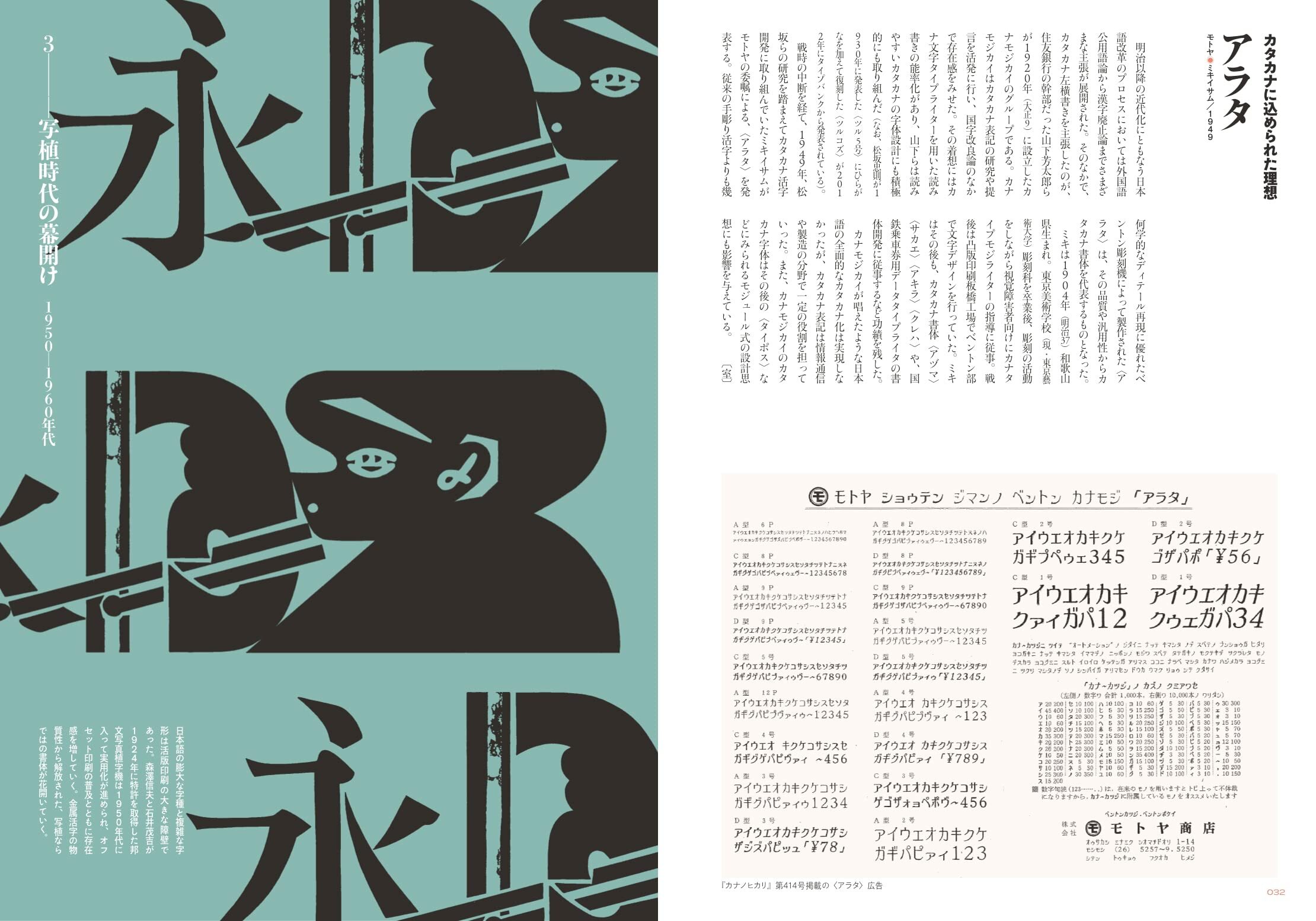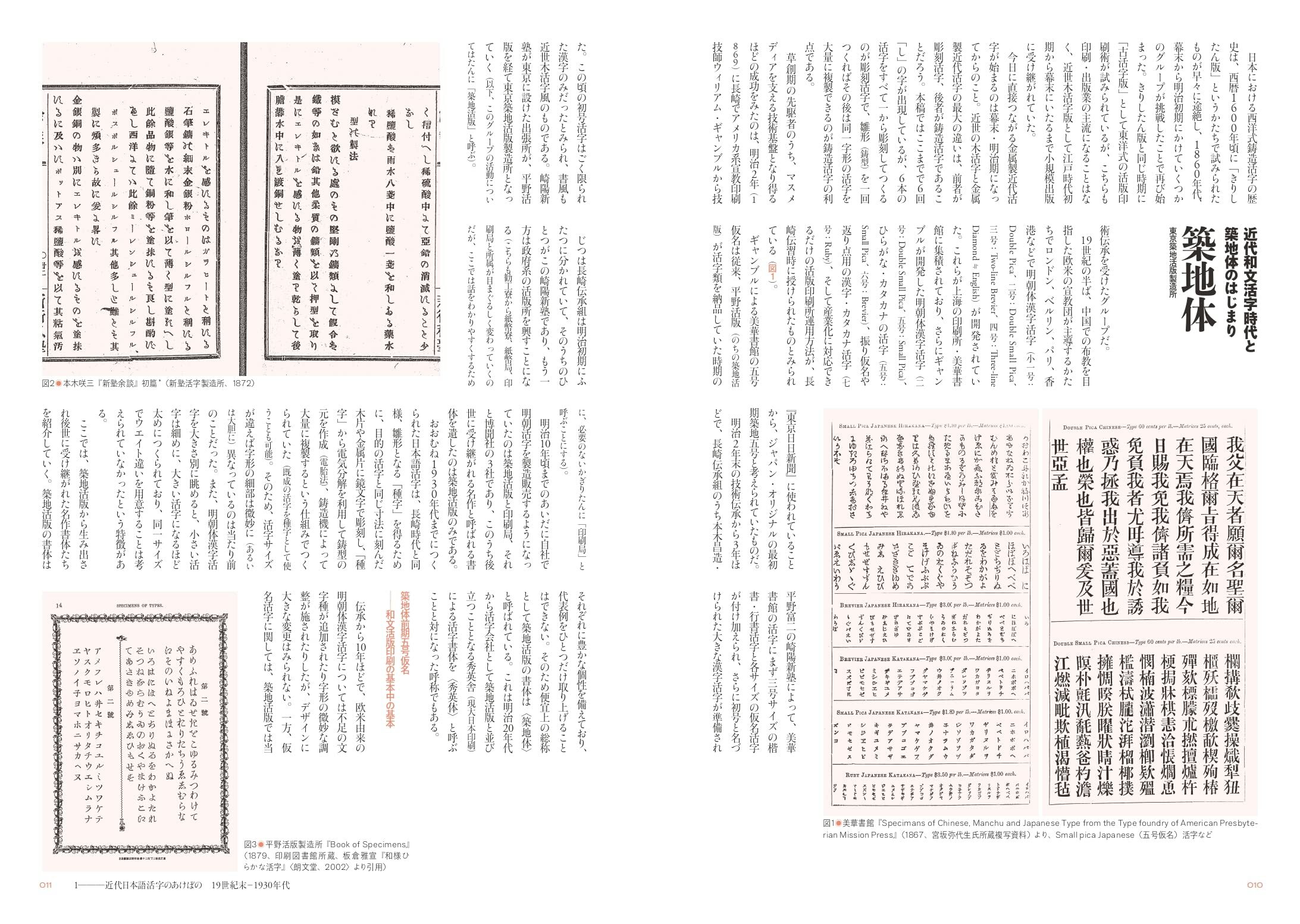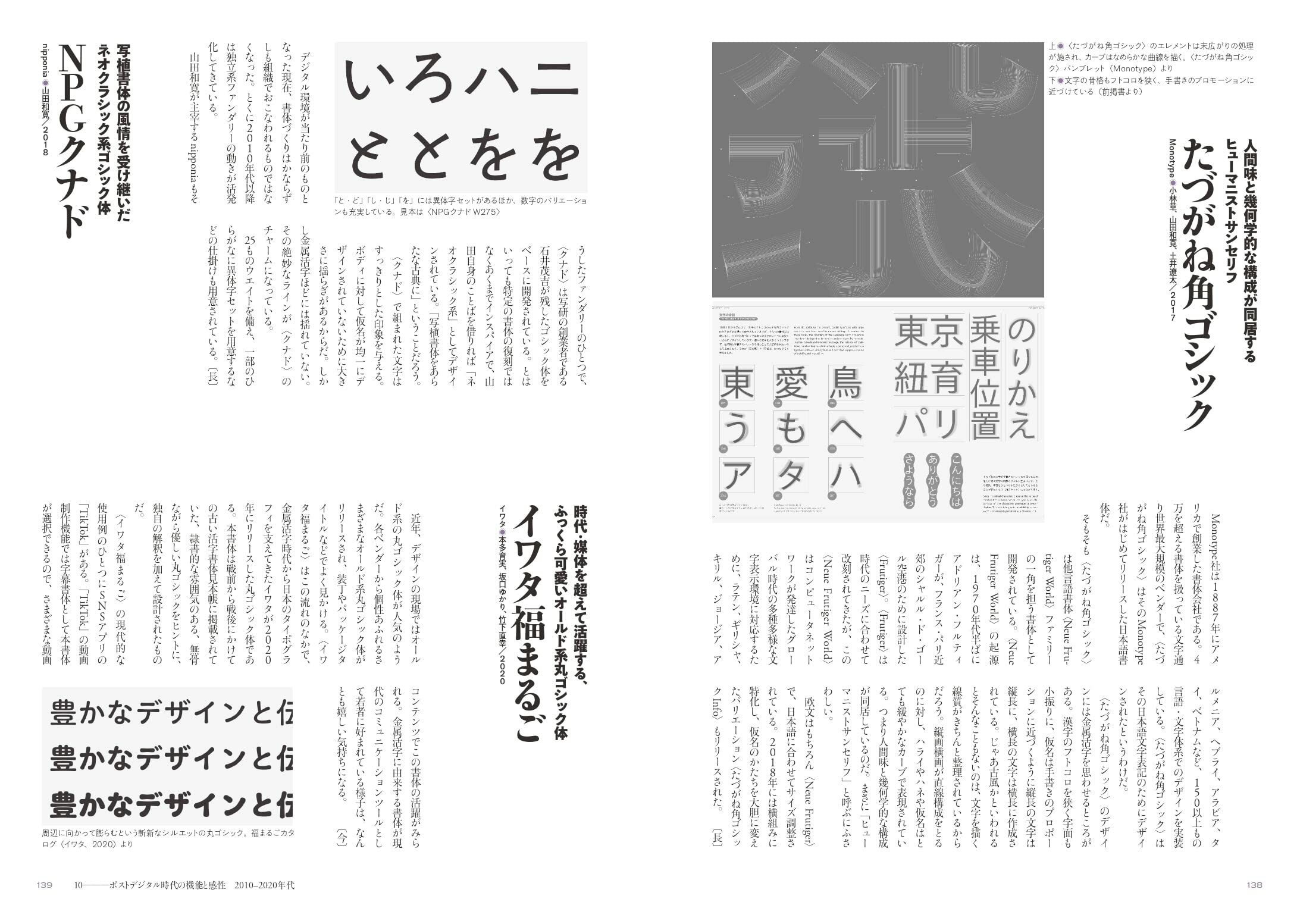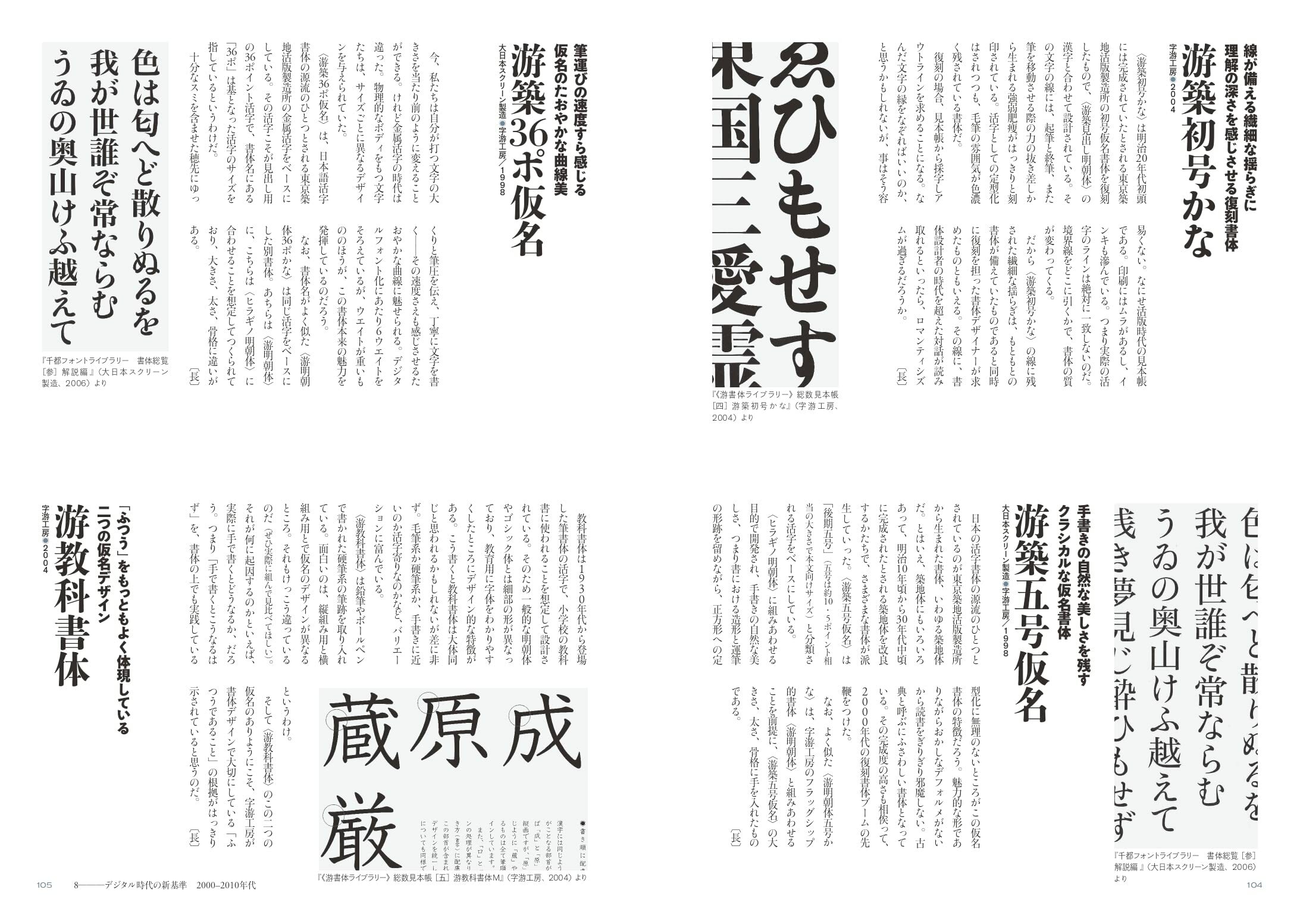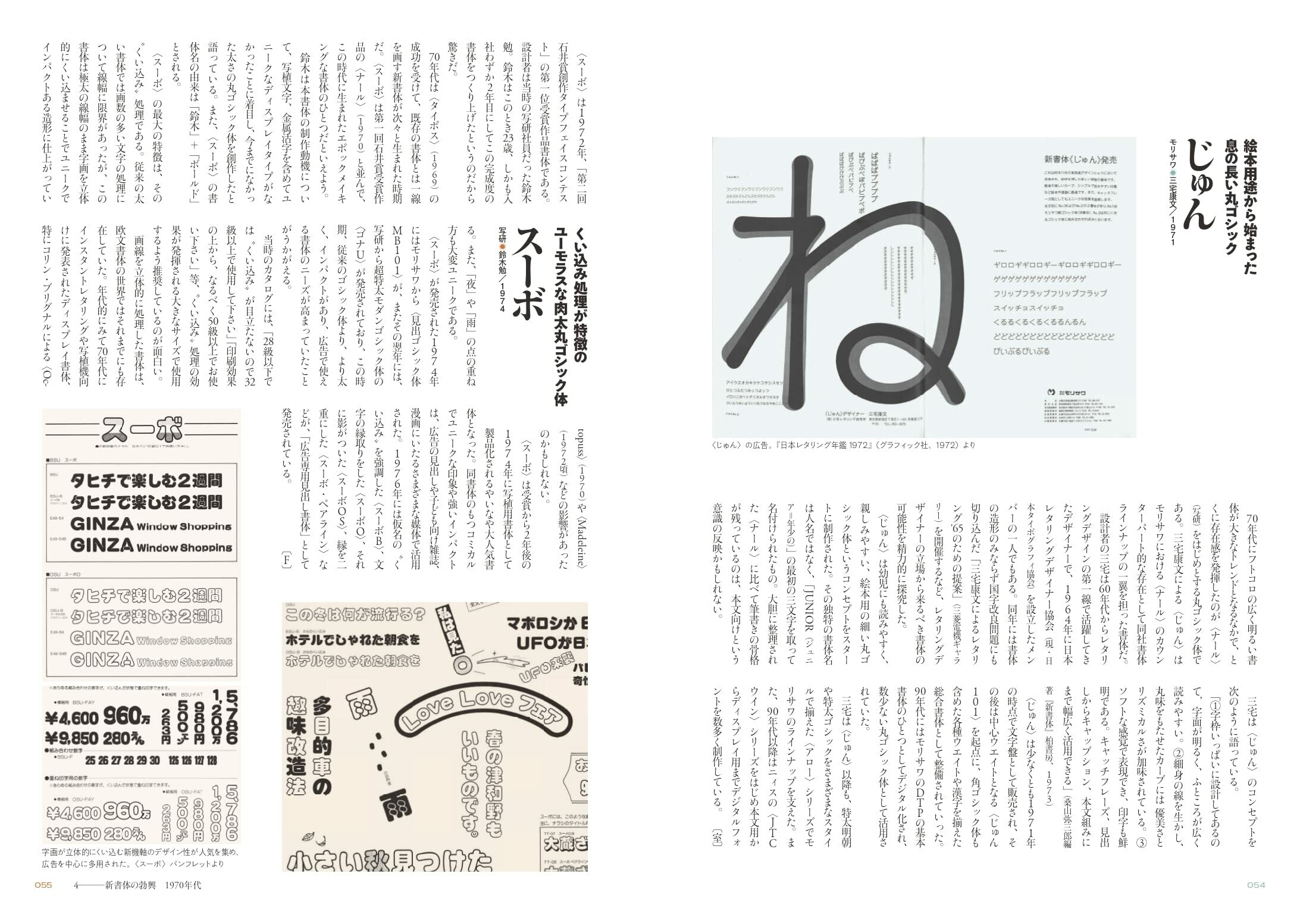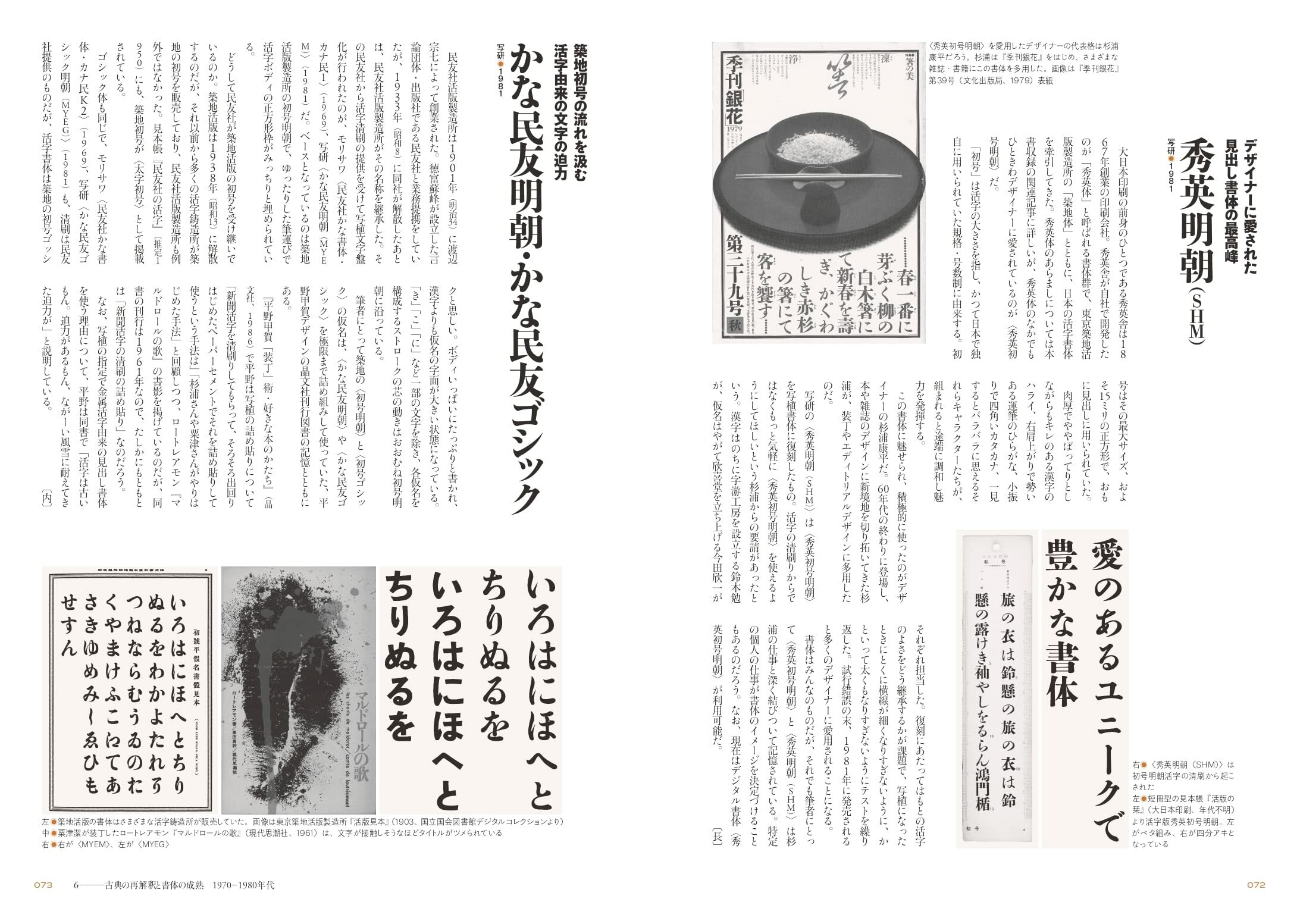
The side of the typeface A typeface guide to read through the times and ideas
Publisher  Graphic-sha
Author    Tatsuya Imaichi (Author), Akira Uchida (Author), Koji Kobayashi (Author), Fontas (Author), Shuri Yuki (Author)
About 150 characteristic typefaces in the flow of Japanese fonts, such as standard typefaces, innovative typefaces, and typefaces with unique concepts, are explained.
A typeface guide based on the times and origins that you want to know because it is a modern age where huge fonts of all ages are lined up flat.
【Table of contents】
Introduction
Chapter 1: Dawn of modern Japanese typefaces, late 19th century - 1930s
Chapter 2: Print that supported post-war growth 1940-1960s
Chapter 3: Dawn of the age of phototypesetting 1950s-1960s
Chapter 4: The rise of new typefaces in the 1970s
Chapter 5: Diversifying Styles 1970s-1980s
Chapter 6: Reinterpretation of classics and maturation of typefaces 1970-1980s
Chapter 7: The arrival and possibilities of digital typefaces 1990s
Chapter 8: New standards in the digital age 2000-2010s
Chapter 9: Nuances and Claims 1990s-2000s
Chapter 10: Functions and sensibilities in the post-digital age 2010-2020s
Related chronology
References
Personal name index
Article index